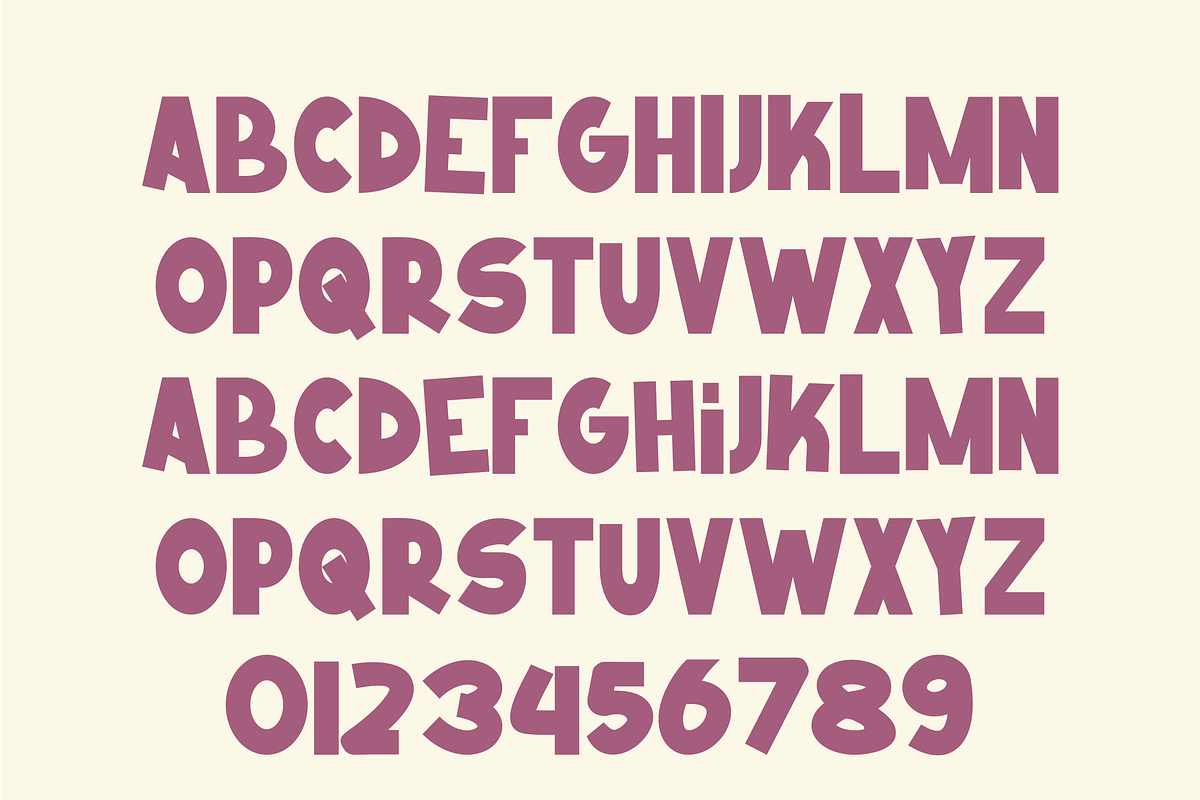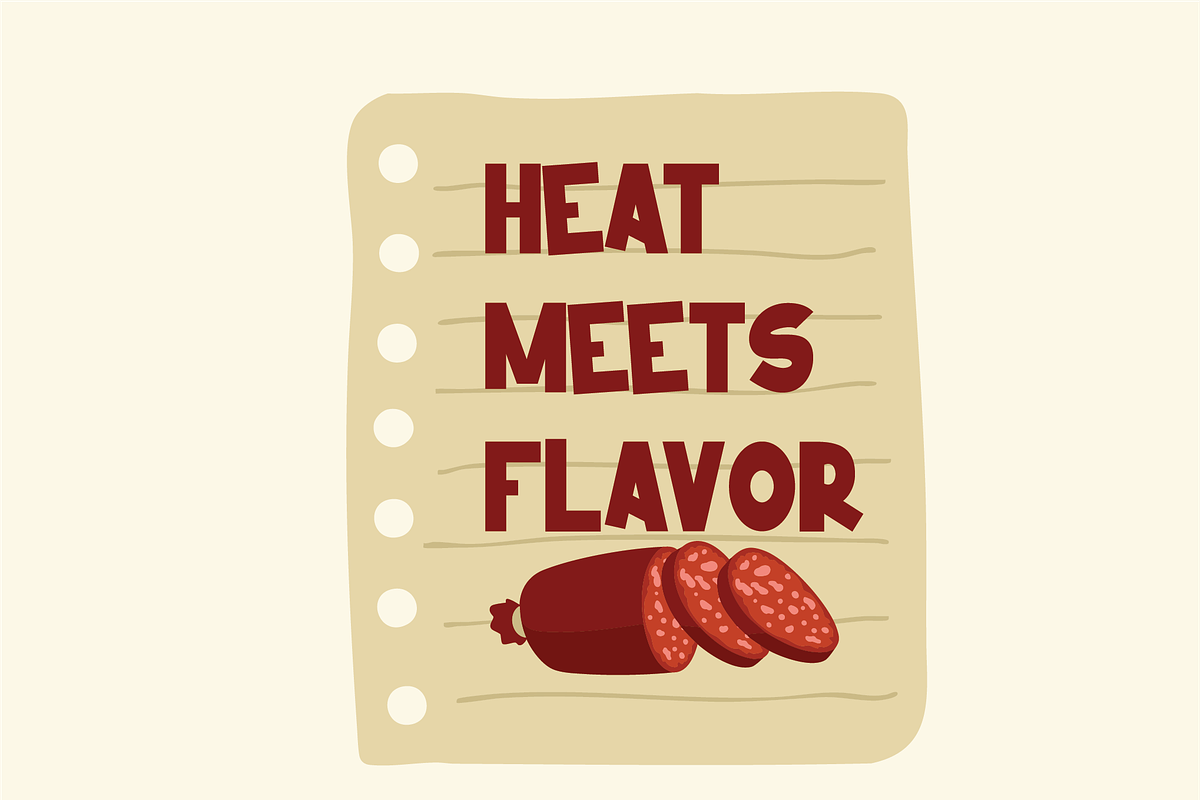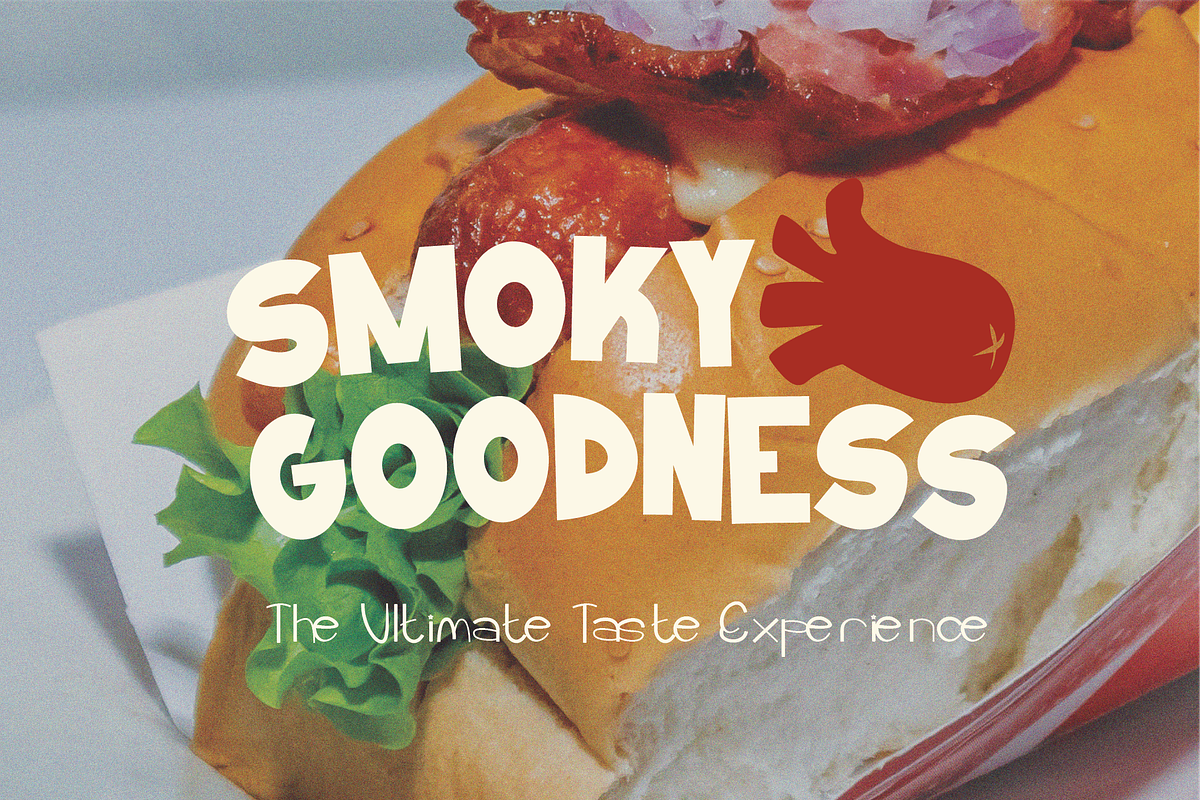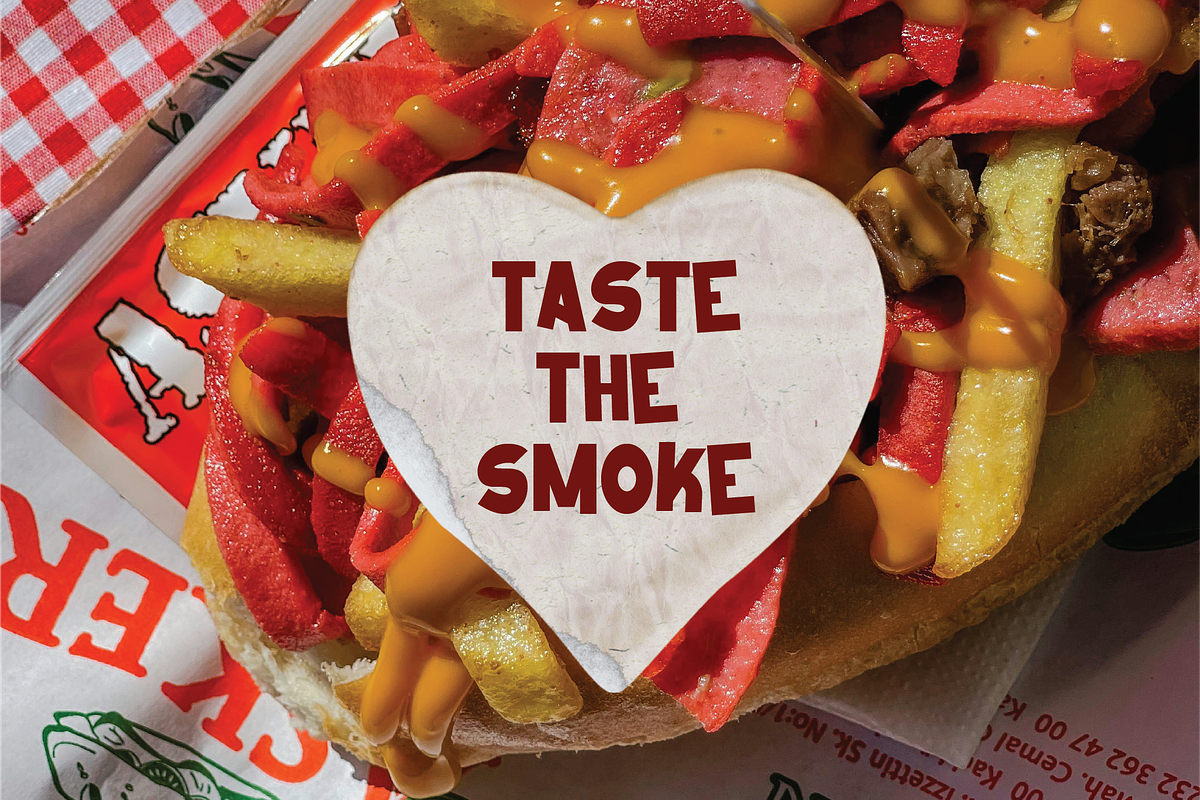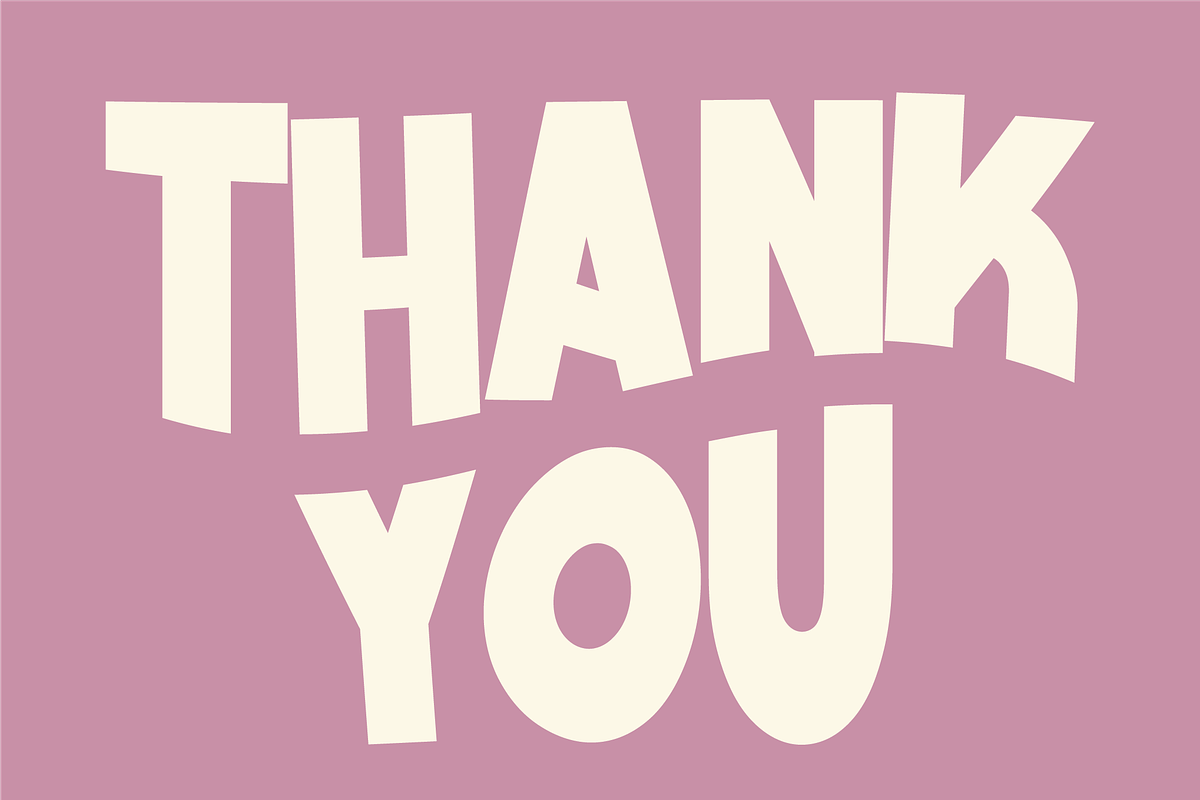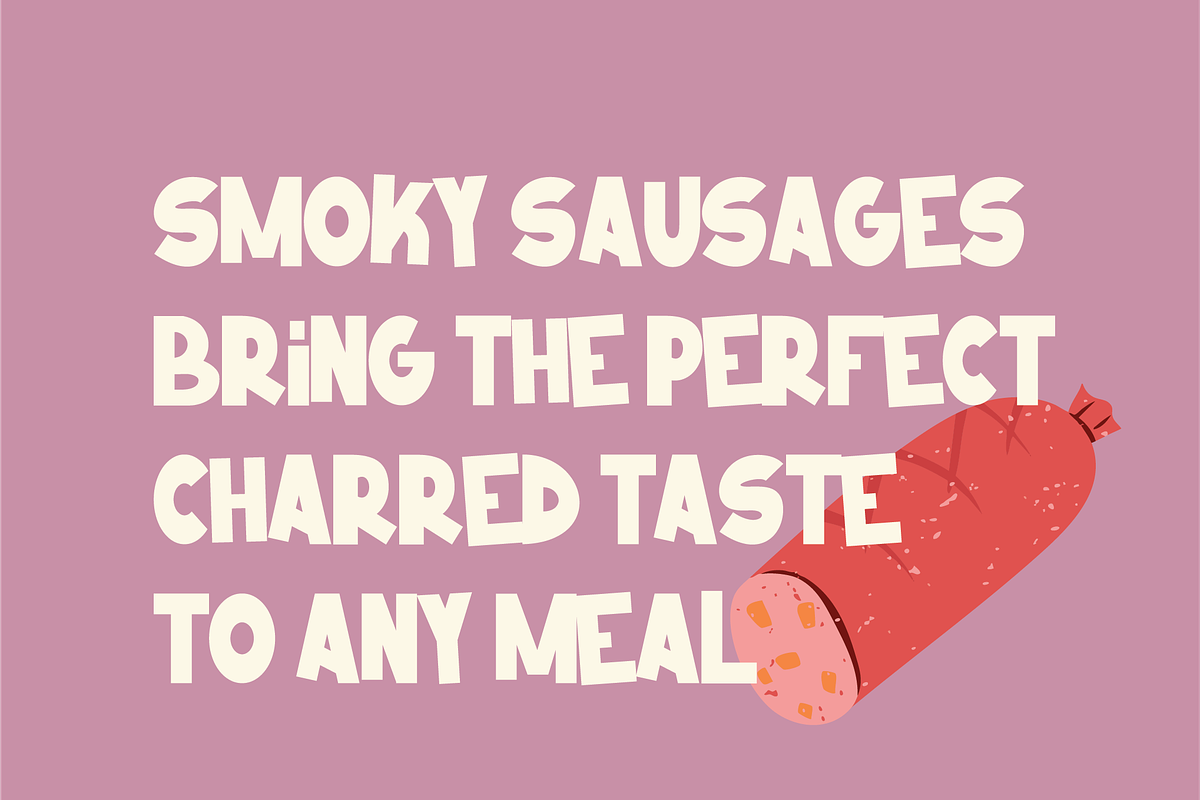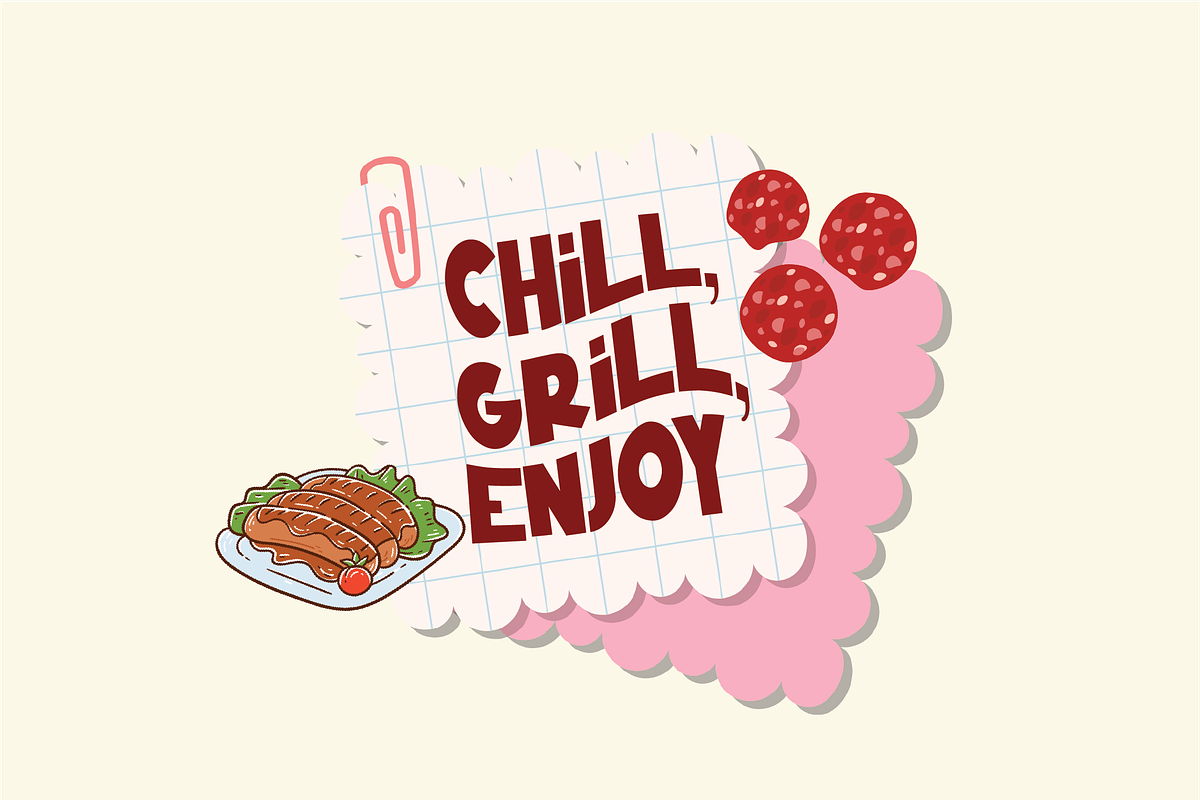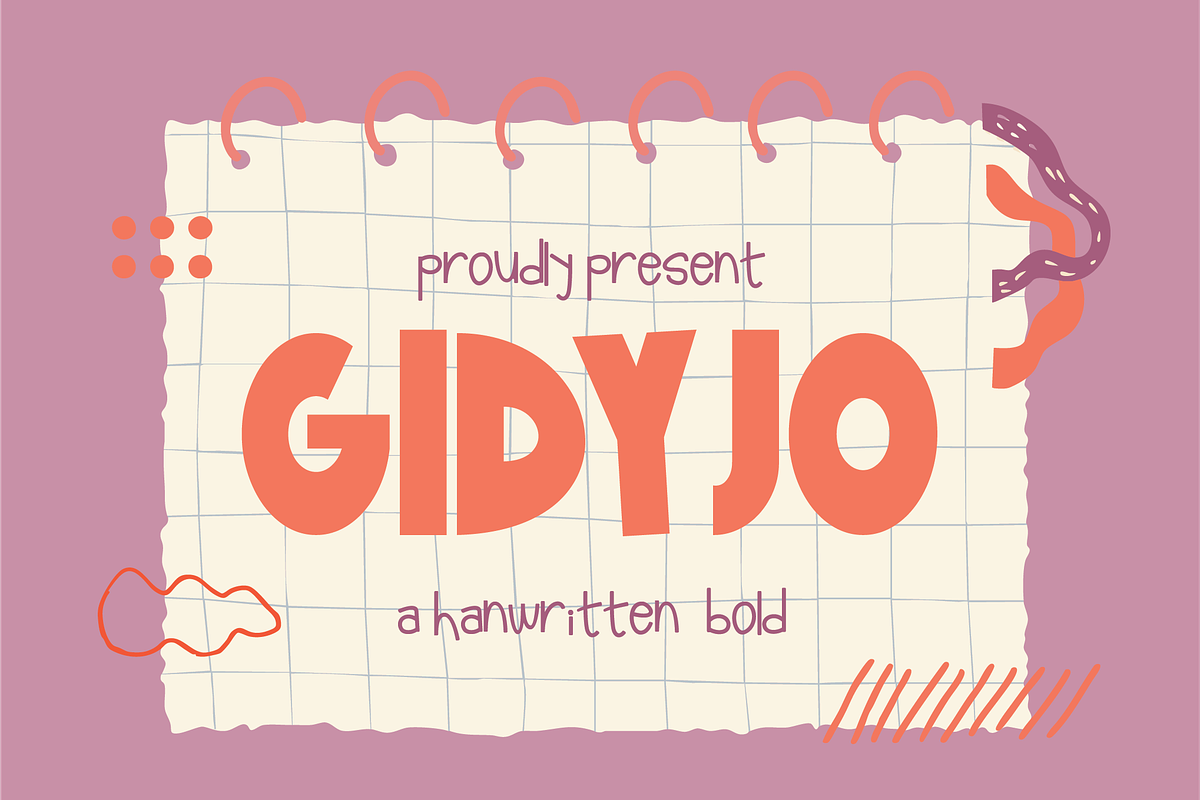
Gidyjo - Handwritten Bold
Gidyjo The font has a bold, modern, and geometric style with clean lines and well-defined shapes. The rounded edges and compact design give it a friendly, approachable look, while the soft peachy-orange color adds a warm and inviting touch.